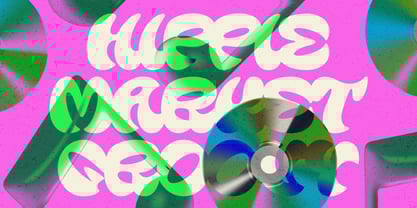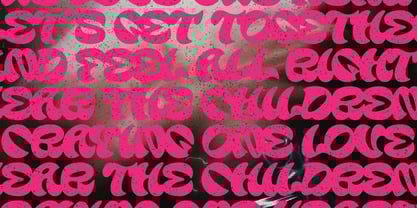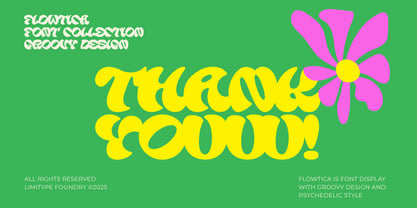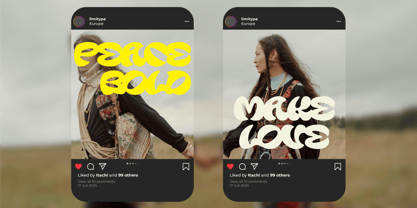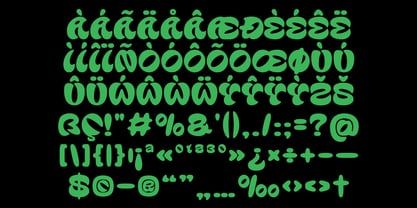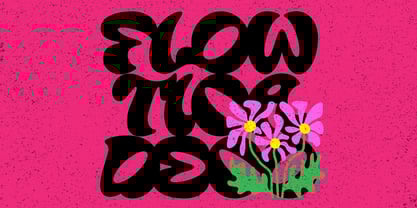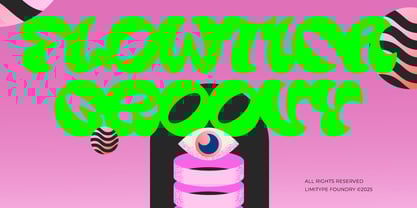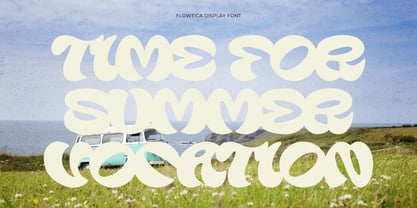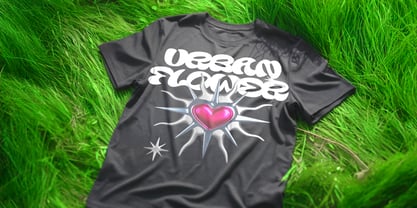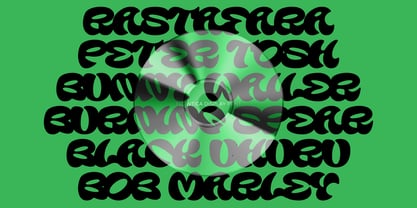
Flowtica
by limitype
The Flowtica Font Family was designed by Muhammad Muammar, Furqan Sudirman and published by limitype. Flowtica contains 1 styles.
Flowtica is a groovy bold display font with rounded, wavy letterforms that bring a retro psychedelic vibe. Its expressive and unique character makes every text look lively and full of energy. Perfect for posters, music covers, vintage designs, creative branding, and social media content that wants to stand out with style. Flowtica available with: - Allcaps - Number - Symbol - Multilingual
Designers: Muhammad Muammar, Furqan Sudirman